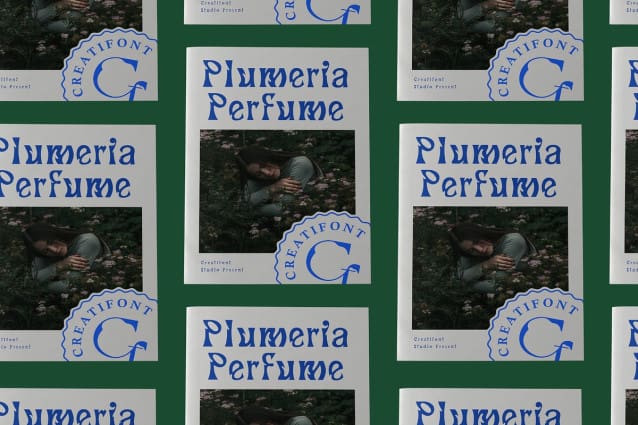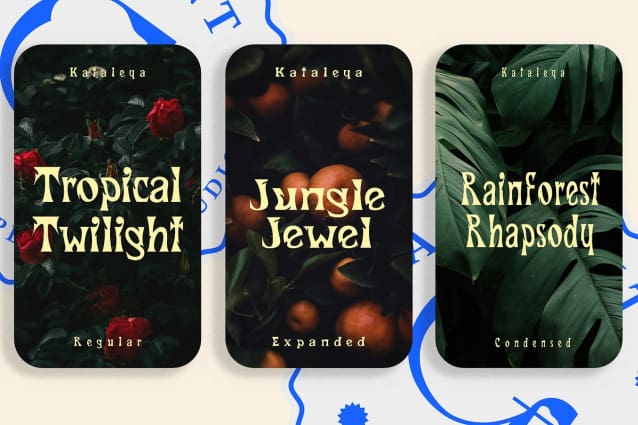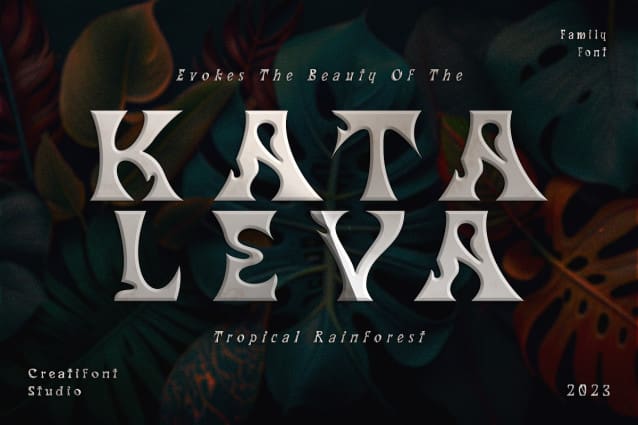
Kataleya Font
Kataleya Font – a font that beautifully captures the essence of Art Nouveau with a contemporary twist, seamlessly blending the elegance and organic intricacies of this iconic artistic movement with the simplicity of grotesque design making it a perfect choice for projects that require a balance of classic and contemporary aesthetics. It is suitable for creating designs such as packaging, logos, or titles.